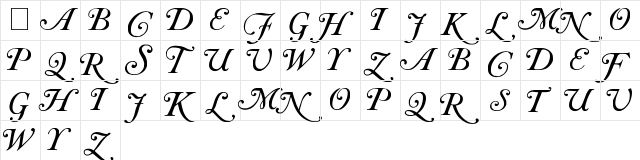
Caslon Initials Regular
Caslon Initials Family
Caslon Initials Regular
Complete Caslon Initials Regular glyph index. Displaying only characters natively supported by Caslon Initials Regular font.
Design Context for Caslon Initials
Caslon Initials is a composed and adaptable typeface that performs quietly and consistently across a wide range of design contexts.